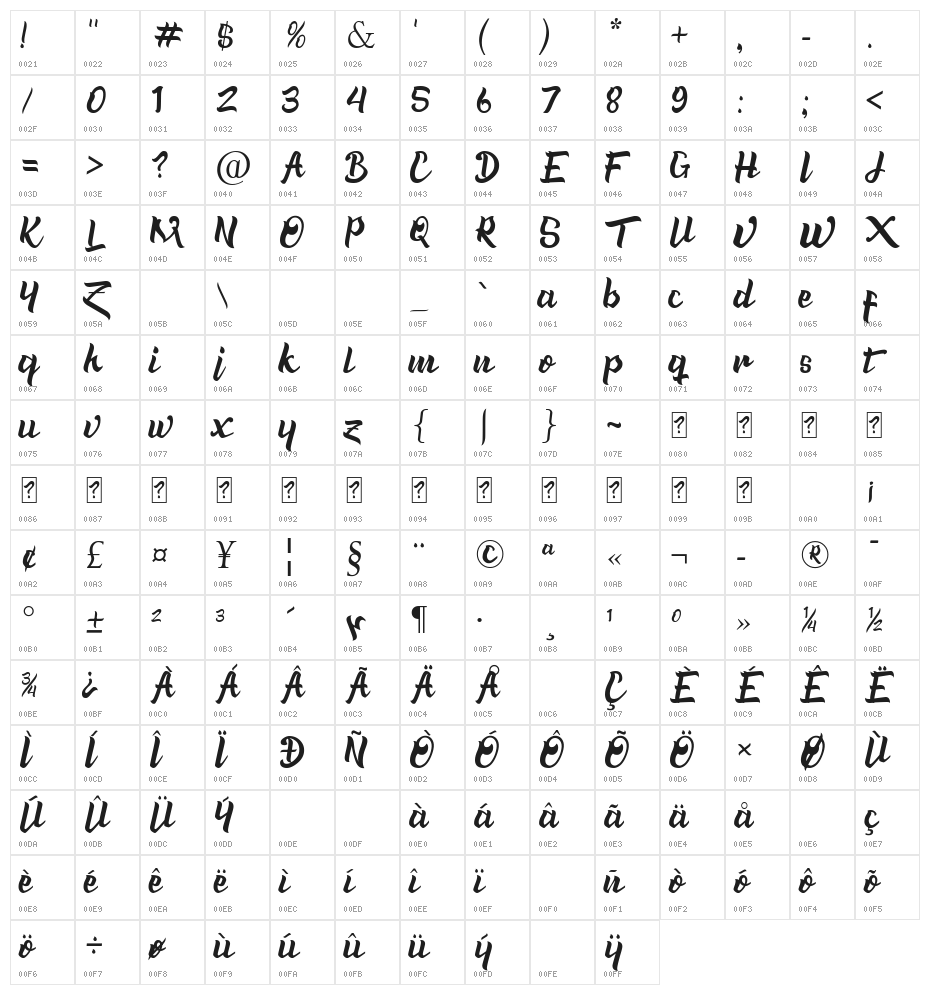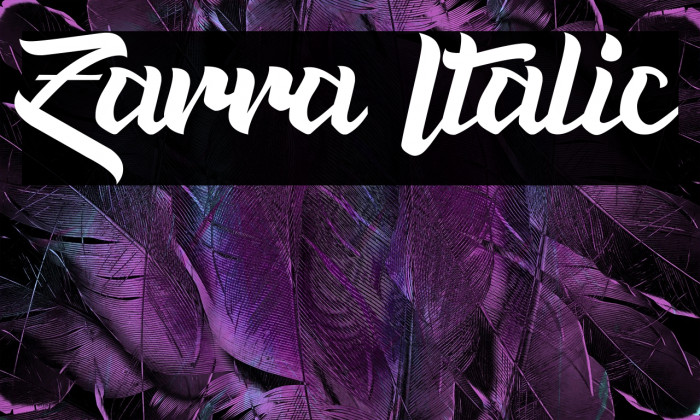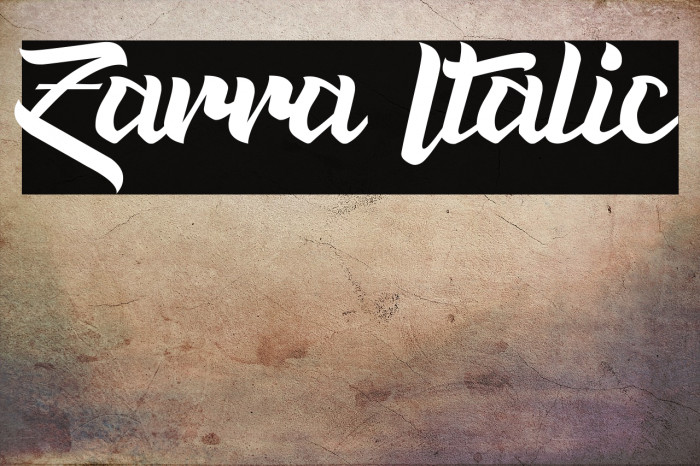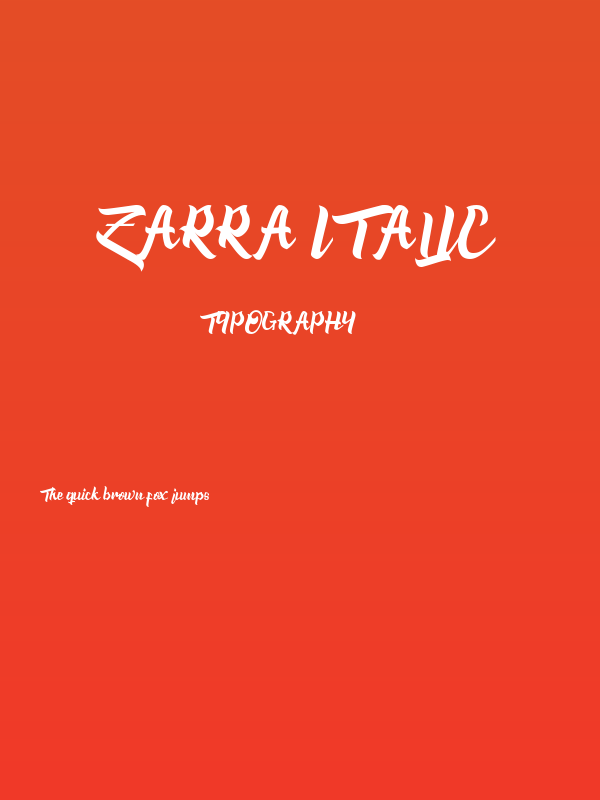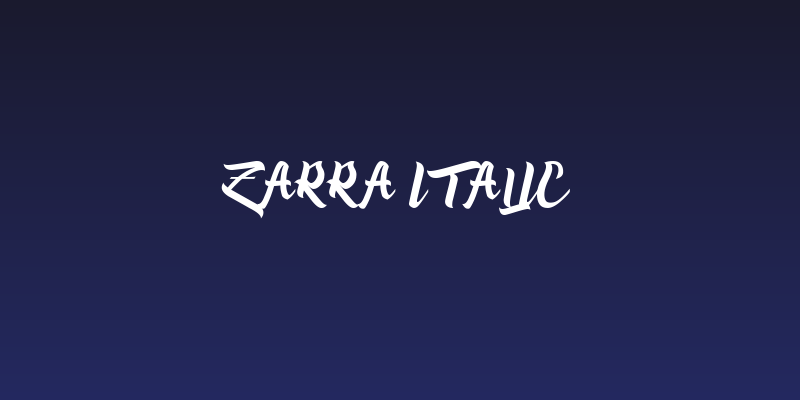
Zarra Italic Font
Zarra Italic Description
This font exhibits a dynamic and expressive style, characterized by its fluid, cursive strokes and a pronounced italic slant. The uppercase letters are bold and sweeping, with a sense of movement and flair, while the lowercase letters maintain a consistent flow, enhancing readability despite their decorative nature. The numerals are equally stylized, maintaining the font's overall energetic and artistic feel. Special characters are crafted with the same attention to detail, ensuring they blend seamlessly with the rest of the typeface. The font's boldness and italic nature make it ideal for creating impactful and stylish designs.
| Proposed Projects | Ideal for branding, posters, invitations, and any project requiring a touch of elegance and personality. |